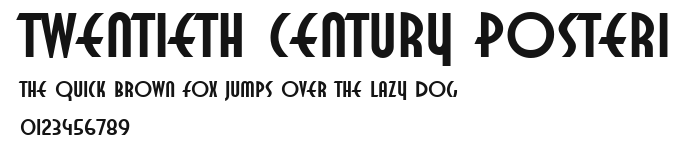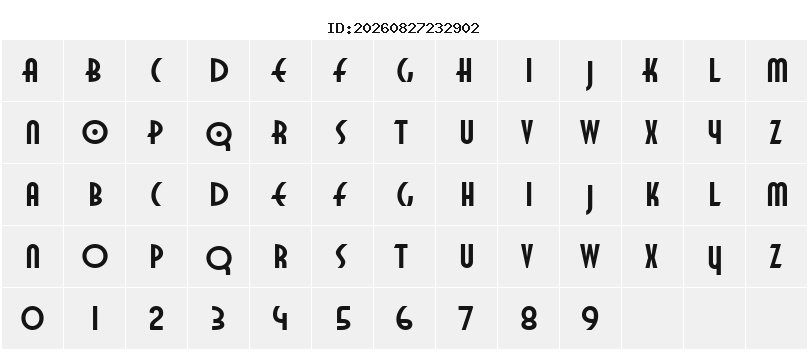
Twentieth Century Poster1 Preview
• Font Name: Twentieth Century Poster1
• Font Style: Roman
• Manufacturer: Monotype Typography
About Twentieth Century Poster1.ttf
Twentieth Century Poster1.ttf is a modern, elegant sans-serif font designed for ultimate readability and visual harmony. Perfect for branding, headlines, web design, and print materials.